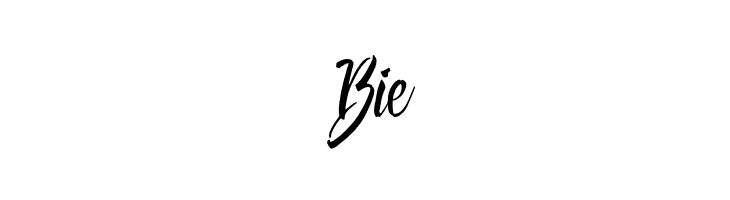
A dynamic, brush-style script font with fluid, expressive strokes.
A dynamic brush-style font with fluid, expressive strokes.
A bold, brush-style font with dynamic and fluid characters.
A bold, brush-style font with dynamic and artistic strokes.
A bold, expressive brush-style font with dynamic, irregular strokes.
A dynamic brushstroke font with bold, expressive characters.
A bold, brush-style font with dynamic and expressive strokes.
A bold, slanted brush-style font with textured strokes and expressive character.
A bold, brush-style font with dynamic, hand-painted strokes.
A dynamic brush-style font with expressive, fluid strokes and a hand-drawn quality.